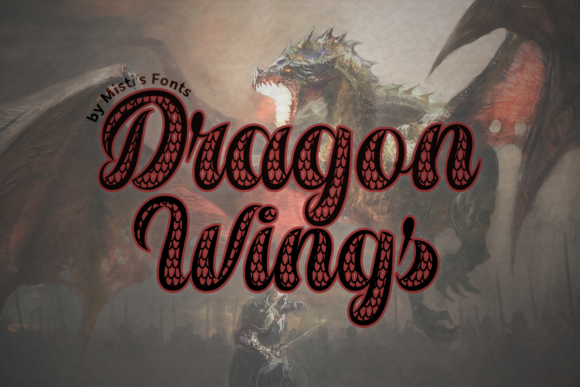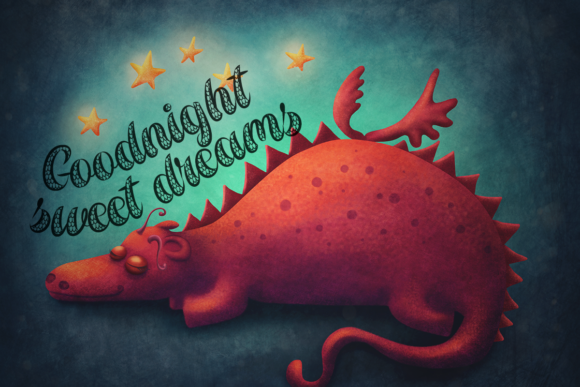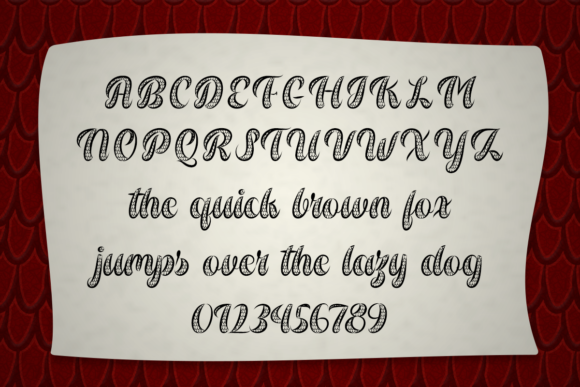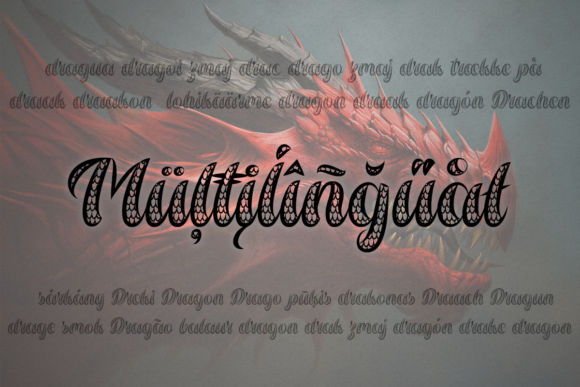
Dragon Wings Font
About Dragon Wings Font
Dragon Wings is a fabulous handwritten font. It is perfect for any project related to dragons, reptiles, mermaids, medieval times, and fairytale themes.